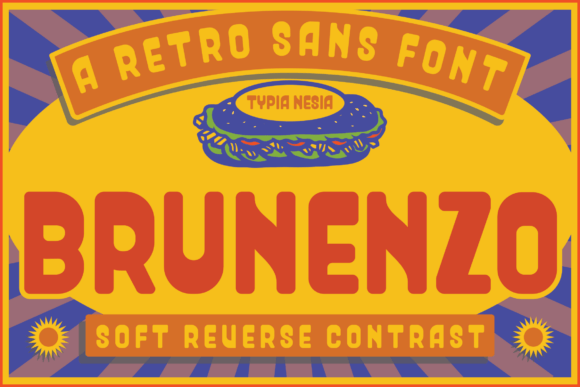
The Retro Revival: Uncovering the Charm of Brunenzo Font
I’ll never forget the struggle I faced while working on a vintage-themed cafe branding project. My client wanted a font that would transport their customers back to the groovy 70s, but I was stuck in a font rut. That was until I stumbled upon Brunenzo – a Classic Retro Condensed Rounded Sans Font that instantly captured the bold and playful aesthetic I was looking for. In this article, I’ll share my love for Brunenzo, its features, and how to make the most of this amazing font.
An Honest Review of Brunenzo
What I Love About Brunenzo ✨
- ✅ Distinct soft reverse contrast that gives it a unique edge
- ✅ Chunky, rounded letterforms that scream retro charm
- ✅ Tall and condensed design perfect for eye-catching display use
- ✅ Full character set, including ligatures and alternates, for versatility
- ✅ Perfect for branding, packaging, poster design, and logos in various industries
- ⚠️ May not be suitable for body text due to its condensed design
- ⚠️ Limited use of italics, but the font makes up for it with its stylistic alternates
Exploring Alternatives to Brunenzo
- Kabel: A classic condensed sans-serif font with a similar retro vibe, perfect for headlines and titles.
- Avant Garde: A geometric sans-serif font with a futuristic feel, great for projects that need a bit of modernity.
- Cooper Black: A bold, chunky serif font with a vintage feel, ideal for adding a touch of elegance to your designs.
- Rockwell: A sturdy, geometric sans-serif font with a retro charm, suitable for display text and headlines.
The Designer’s Inspiration Behind Brunenzo
Brunenzo’s design draws inspiration from the iconic typography of the 1970s. The font’s creator aimed to capture the essence of retro charm, combining bold and playful elements with a modern twist. The result is a font that’s both nostalgic and fresh, perfect for designers looking to add a touch of vintage flair to their projects.
Q: What is the best use for Brunenzo?
A: Brunenzo is ideal for display text, headlines, and titles, particularly in branding, packaging, and poster design.
Q: Can I use Brunenzo for body text?
A: While possible, Brunenzo’s condensed design makes it less suitable for body text. It’s best used for short, impactful text.
Q: Does Brunenzo come with OpenType features?
A: Yes, Brunenzo includes a full character set, ligatures, and alternates, allowing for versatile typography.
Q: Is Brunenzo suitable for digital use?
A: Absolutely! Brunenzo’s bold and playful design makes it perfect for digital applications, from social media graphics to website headers.